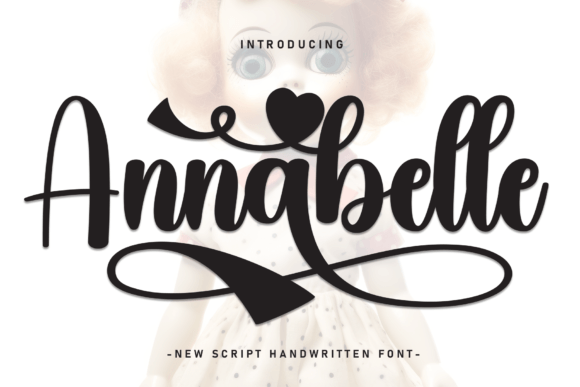
**Unleash Your Creative Spirit with Annabelle Font: A Retro Haven for Timeless Designs**
In a world craving authenticity and individuality, the Annabelle Font emerges as a beacon of creativity, offering a glimpse into the captivating allure of yesteryears. Inspired by the nostalgic charm of vintage aesthetics, Annabelle Font transports you to an era where handwritten letters exuded elegance and charm. With its intricate swirls, delicate curves, and timeless appeal, this font is an ode to the golden age of design.
**Immerse Yourself in Retro Charm:**
Annabelle Font casts a spell of nostalgia, transforming your digital creations into captivating works of art. Its meticulously crafted characters evoke a sense of longing for simpler times, while its versatility lends itself seamlessly to a myriad of projects. From elegant wedding invitations and heartfelt love letters to eye-catching social media posts and captivating advertisements, Annabelle Font weaves a tapestry of visual enchantment.
**Elevate Your Designs with Exquisite Handwriting:**
Let your imagination run wild as you harness the power of Annabelle Font to elevate your designs. Its flowing strokes and graceful flourishes add a touch of sophistication and artistry to any project. With Annabelle Font as your creative companion, you'll effortlessly craft designs that exude personality and leave a lasting impression.
**Experience the Versatility of a Timeless Font:**
Annabelle Font is not merely a collection of letters; it's a gateway to a world of creative possibilities. Whether you're a seasoned designer or just starting your artistic journey, Annabelle Font empowers you with unparalleled versatility. From wall displays that captivate the senses to product packaging that speaks volumes about your brand's unique identity, Annabelle Font is your trusted ally in creating designs that stand the test of time.
**Unleash Your Creativity:**
**Embrace the Beauty of Simplicity:**
With Annabelle Font, beauty lies in simplicity. Its clean lines and uncluttered design allow your words to shine, making it the perfect font for those seeking clarity and sophistication. Whether you're crafting personal notes, business documents, or captivating headlines, Annabelle Font ensures your message is conveyed with grace and impact.
**Immerse Yourself in Creative Bliss:**
Annabelle Font is more than just a font; it's an open invitation to immerse yourself in a world of creative bliss. Its carefully crafted characters inspire you to think outside the box and explore new horizons of design. With Annabelle Font as your guide, you'll discover hidden depths of creativity and unlock your true artistic potential.
**Unlock Endless Possibilities:**
The possibilities are endless with Annabelle Font. Its timeless charm and versatility make it the perfect choice for a wide range of projects. Unleash your imagination and let Annabelle Font guide you to create designs that captivate, inspire, and leave an indelible mark on the world.